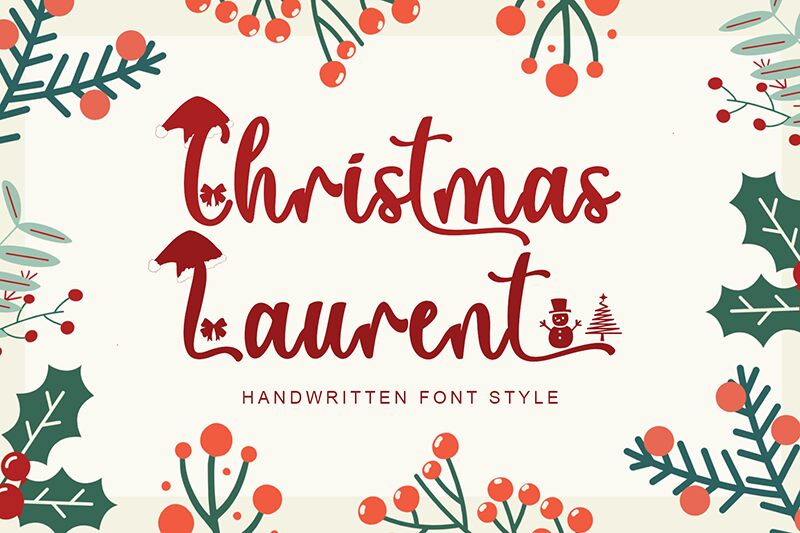
Christmas Laurent font by Yoga Letter is a free holiday font with that special holiday spirit. Vibrant and exciting, the font influences the tone of its texts with just its presence, making it both a decorative display font and a thematic one. So once the holiday season rolls around, you know that a magical display font that’ll keep your projects fresh and fun is right at your fingertips.